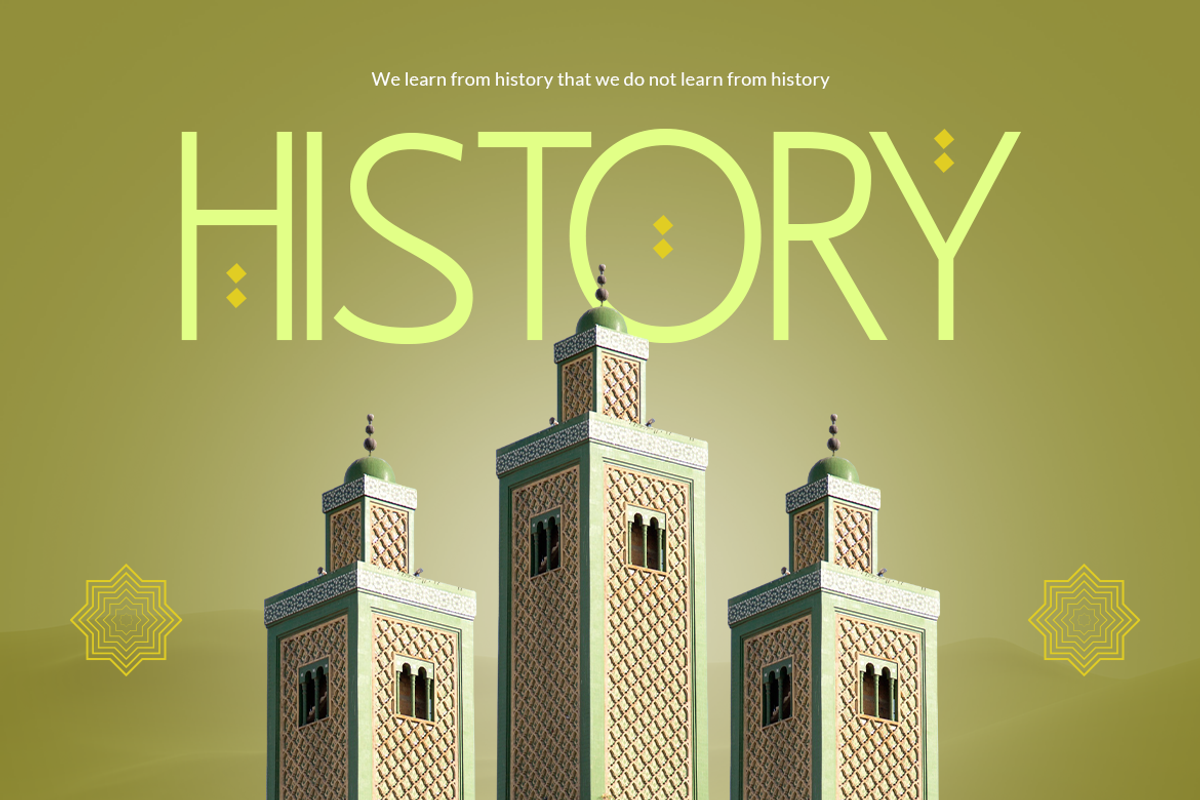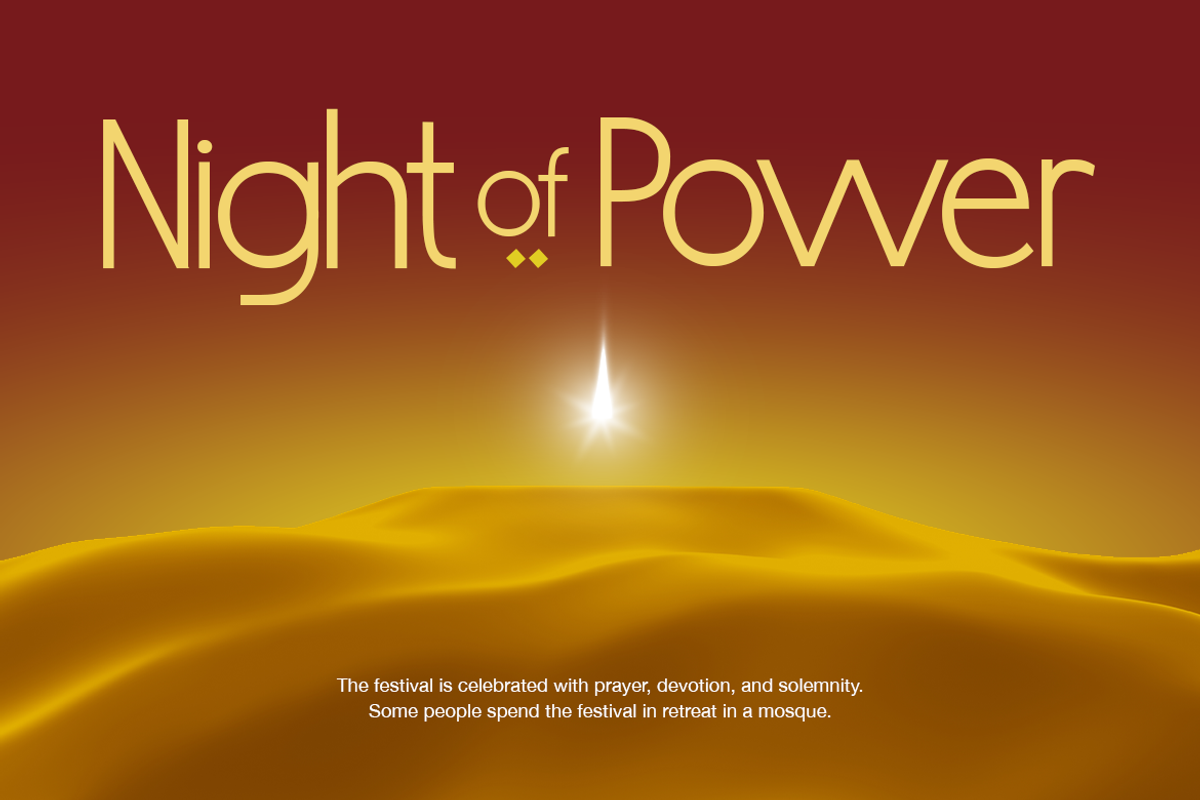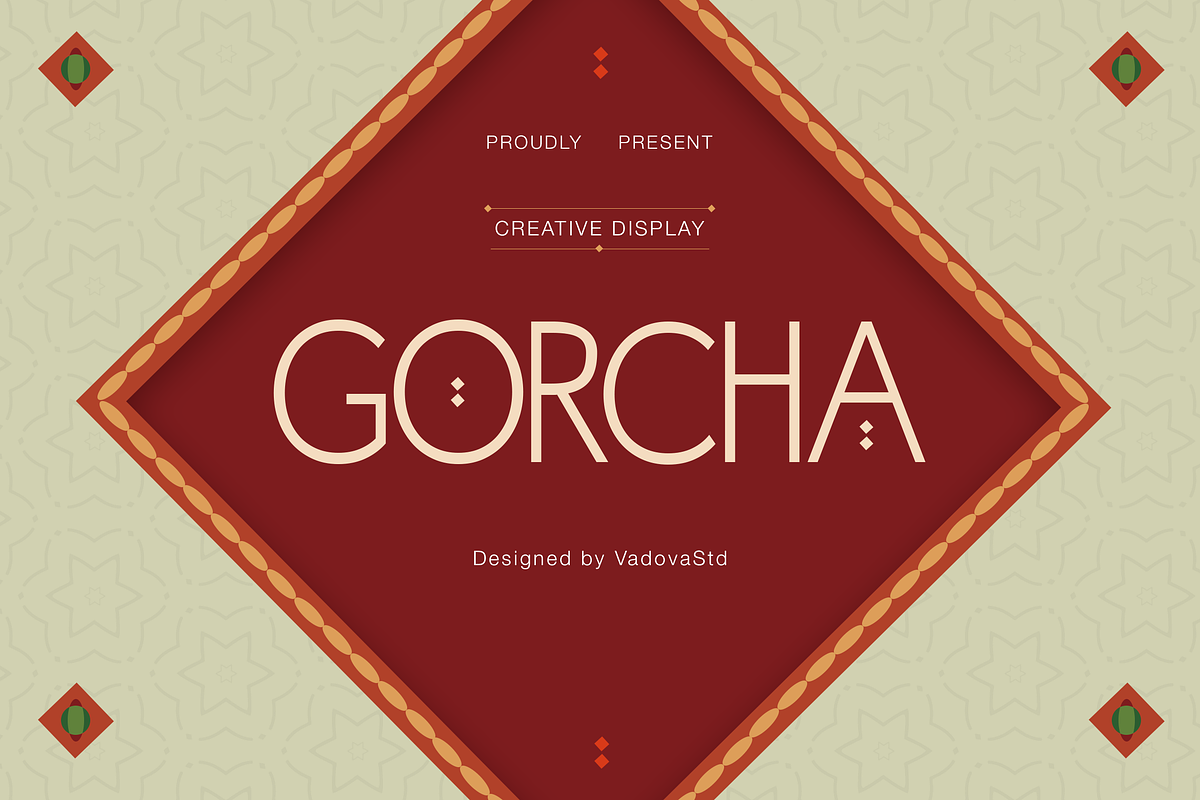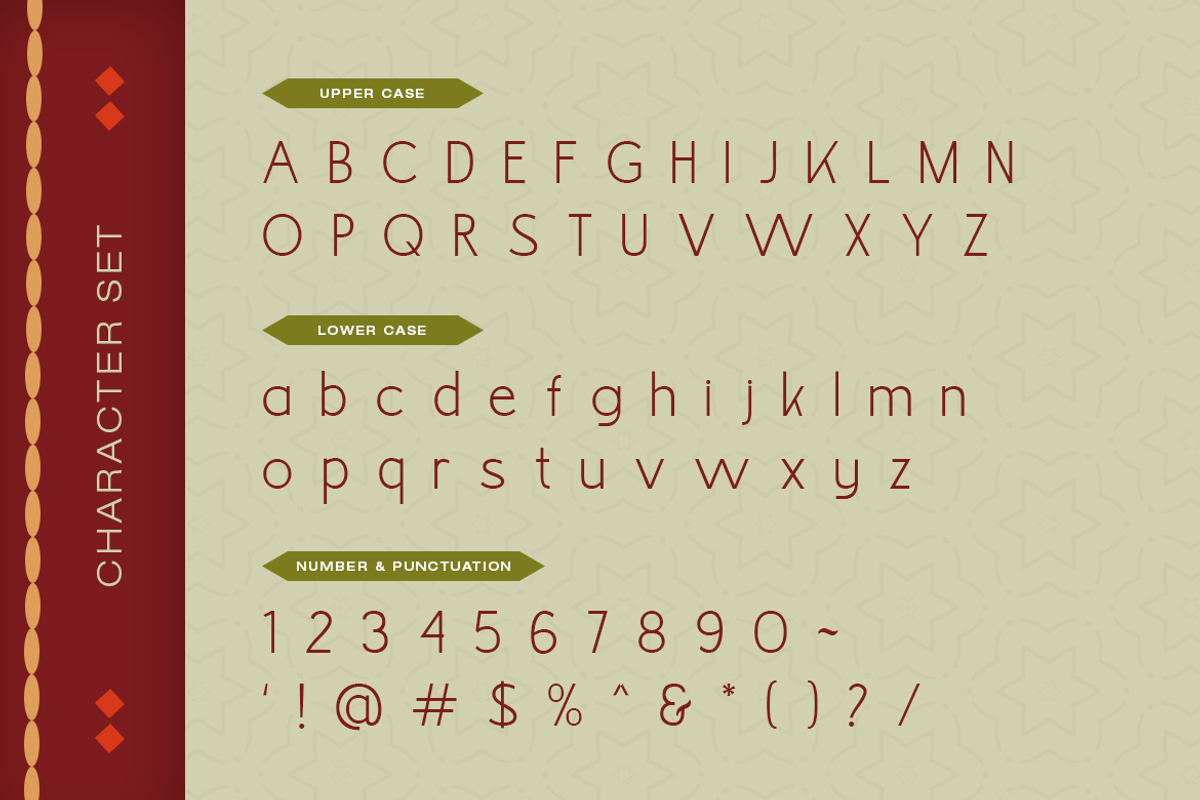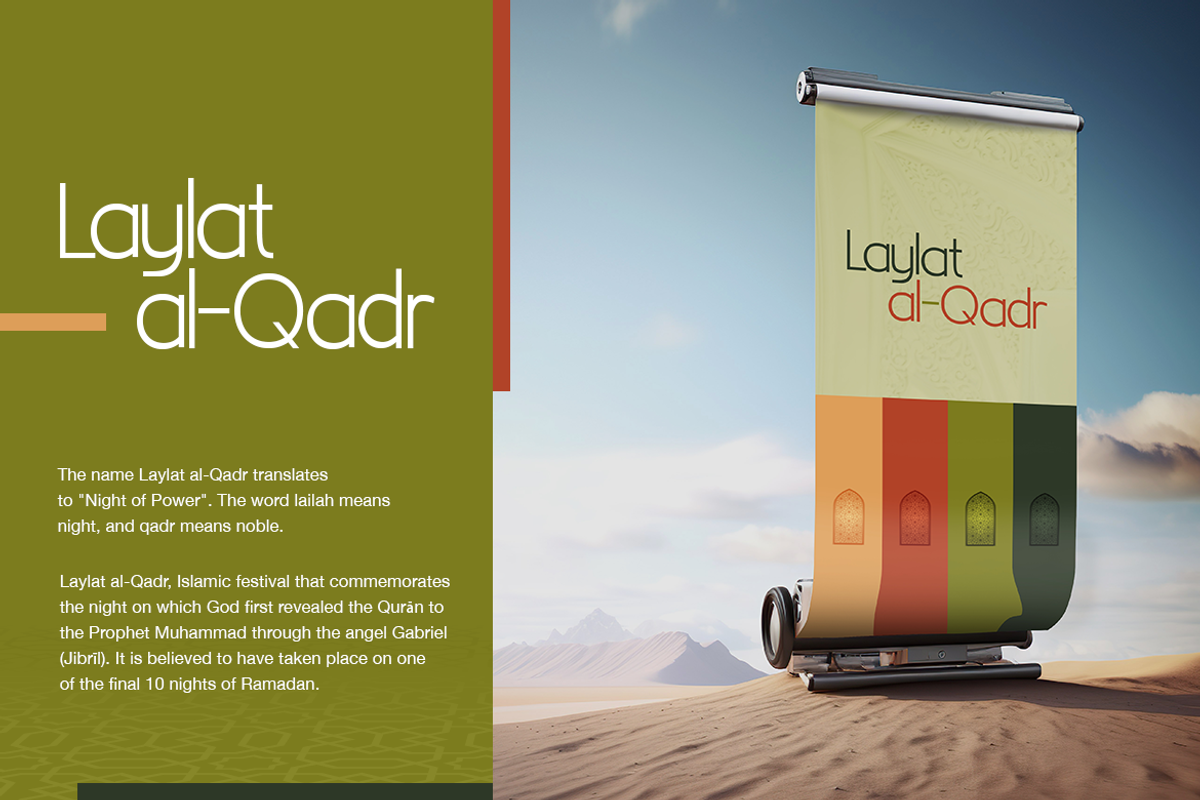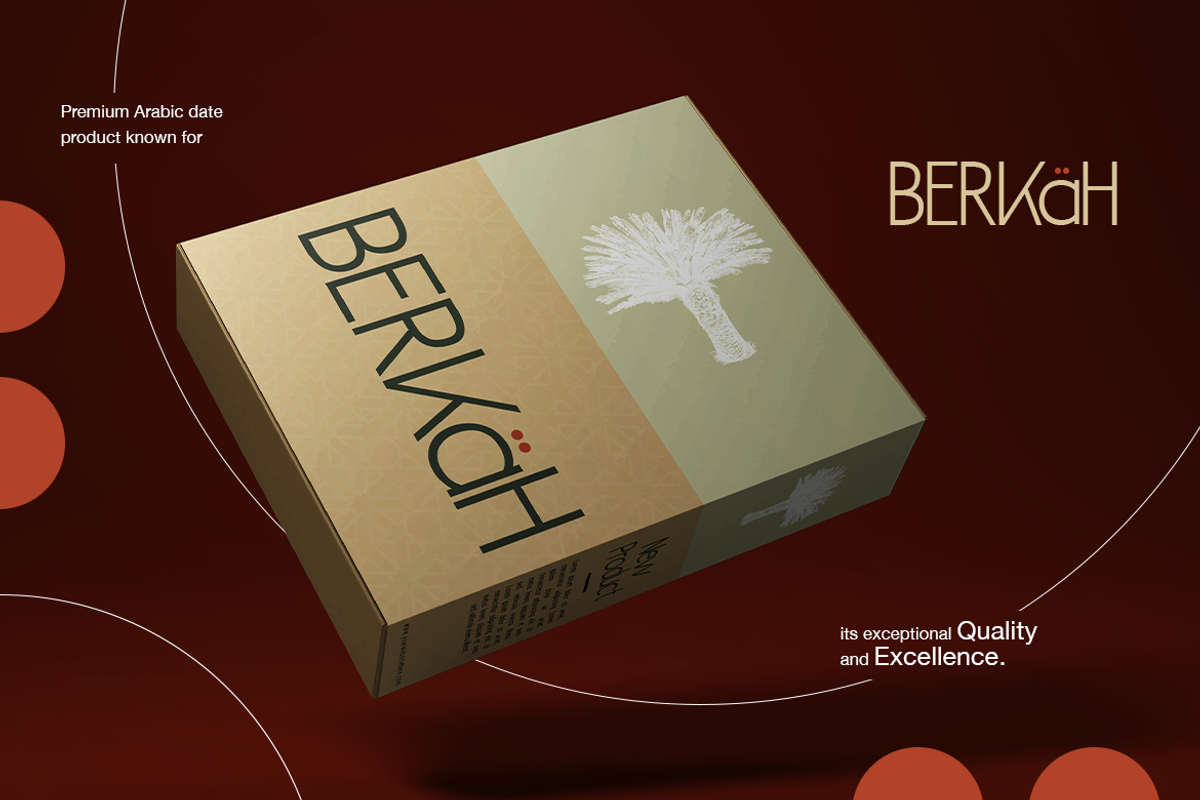
Gorcha - Thin Sans Serif
Gorcha is a unique creative display font that blends cultural influences with a clean, modern structure. Its letterforms feature subtle ornamental touches and geometric precision, making it both distinctive and versatile. Whether for cultural branding, editorial headlines, or decorative titles, Gorcha brings a stylish, contemporary twist to traditional design aesthetics.
With its strong visual presence and elegant rhythm, this typeface is ideal for display use in posters, packaging, logos, and event graphics that need a creative yet balanced look.
Font Highlights
Uppercase & lowercase letters
Numerals and punctuation
Decorative display style with geometric inspiration
Why Designers Love Gorcha
Culturally Inspired – Reflects traditional patterns through minimal yet expressive letterforms.
Creative Identity – Ideal for projects seeking a modern but distinctive visual language.
Versatile Display – Perfect for logos, packaging, editorial work, and posters.
Elegant Structure – Geometric forms bring clarity and sophistication to cultural design.
Best Applications
Cultural branding and identity systems
Poster and event graphics
Editorial layouts and magazine titles
Product packaging and labels
Logo design and decorative signage
Modern advertising and social media content
Make your designs stand out with Gorcha — a display font that elegantly bridges tradition and contemporary style.